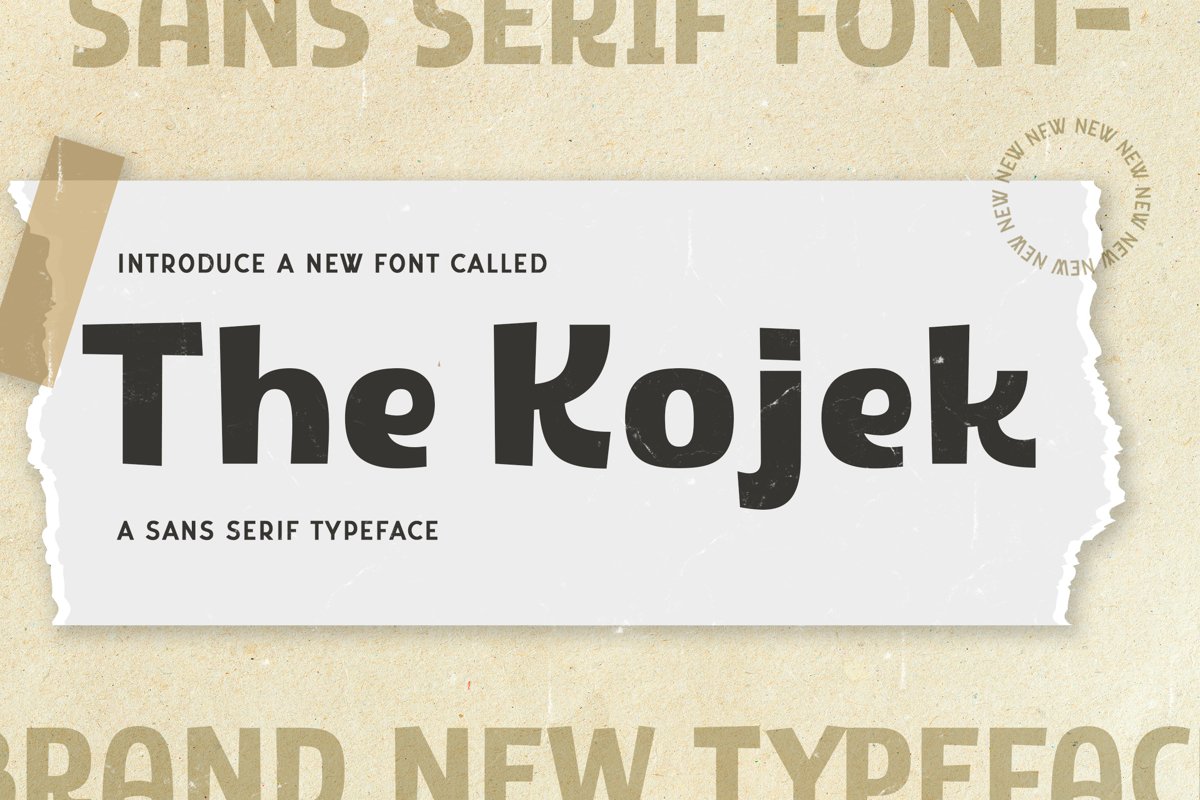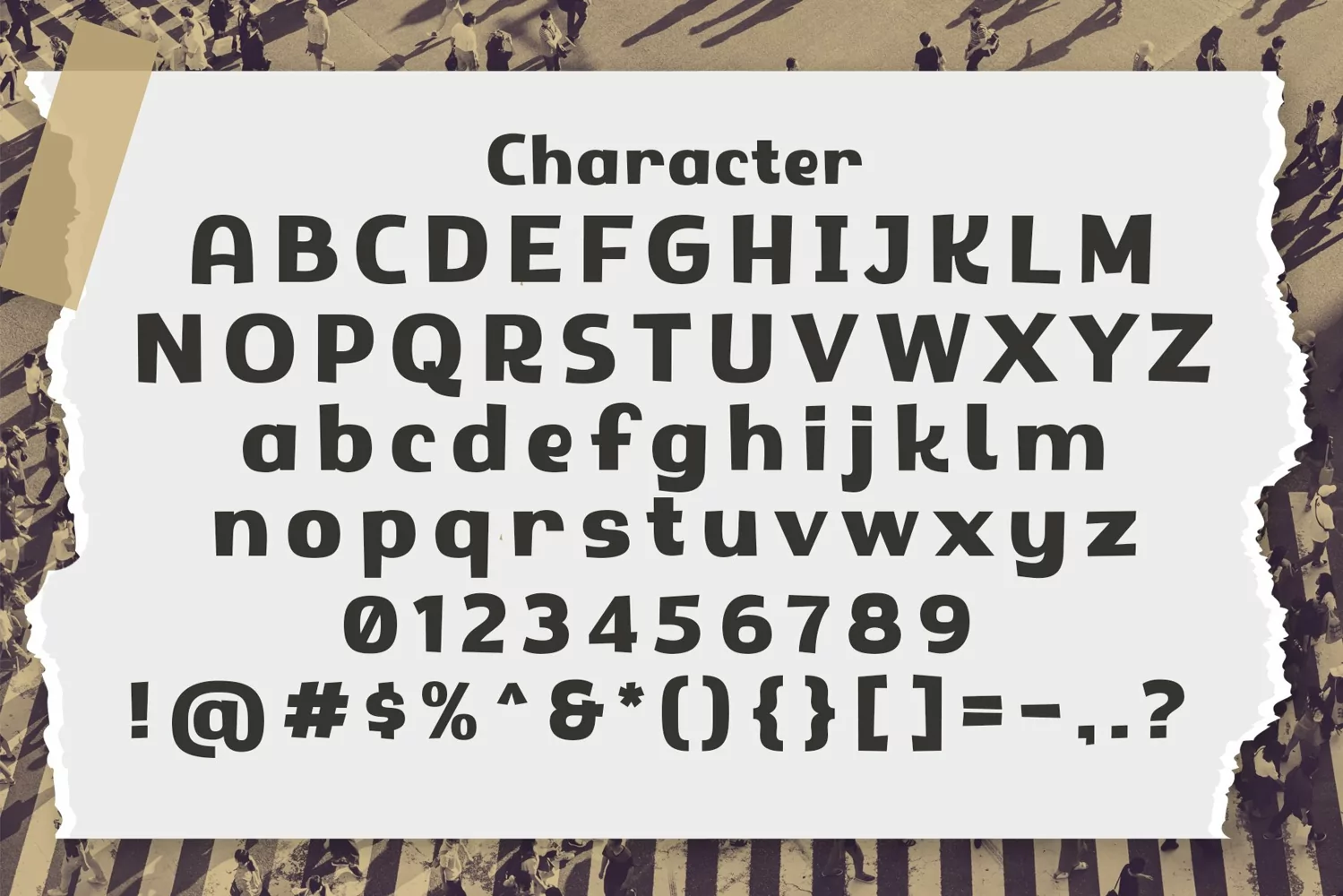
Kojek is a display typeface. Perfect for display, quotes, packaging, branding, header, tittle, merchandise, print, t-shirt, pin, pillow, business card, crafting needs, and many more.